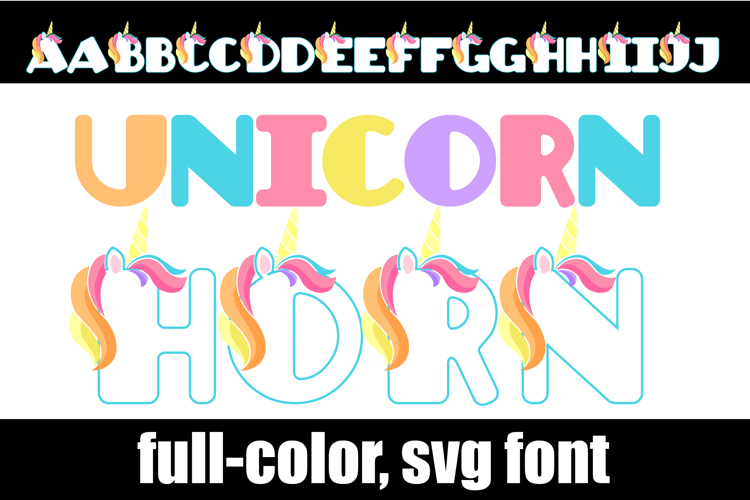
Unicorn Horn Color Font
This full-color font features unicorn horns and hair on the uppercase. There is an alt case of each letter with a different color combination.